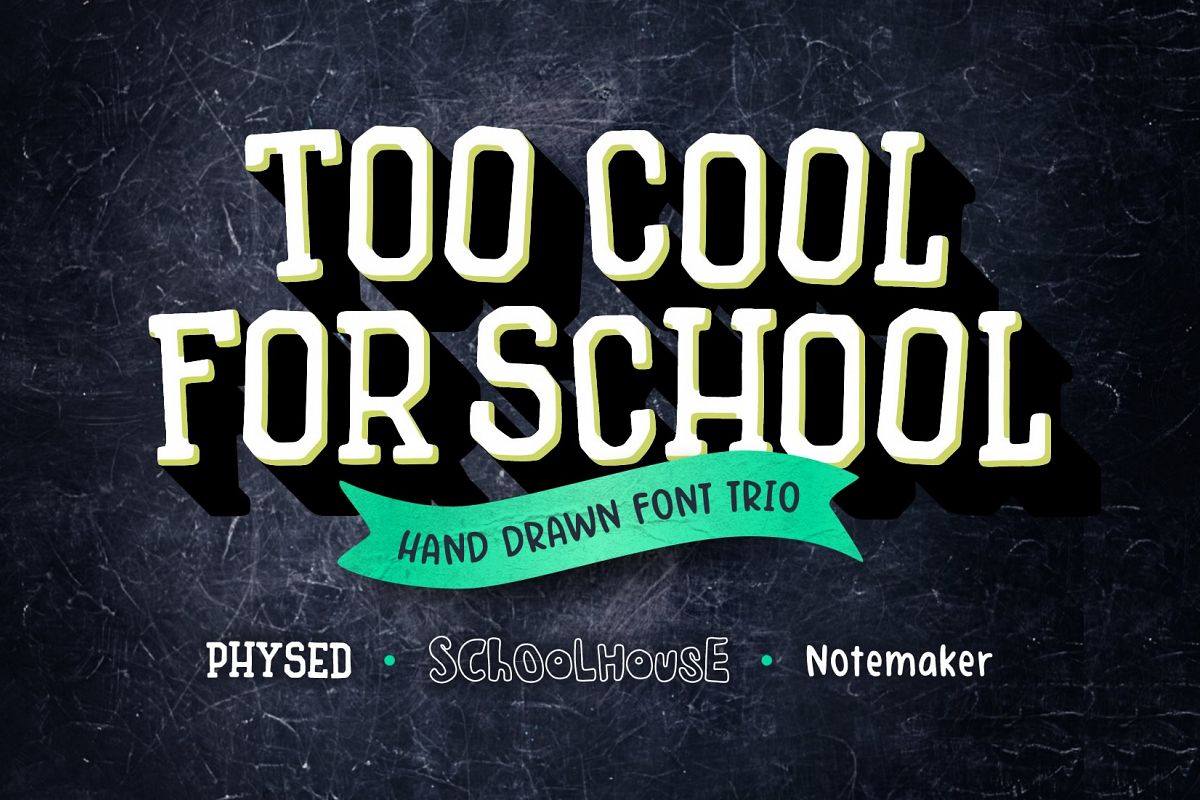
Too Cool for School Font Trio
PhysEd
Notemaker
SchoolhouseOutline
Schoolhouse
Too Cool for School Font Trio includes 3 fun hand-drawn fonts: PhysEd - a collegiate slab serif, Notemaker - a super useful sans, and Schoolhouse - a childlike block font with solid and outline versions. English language only.
Too Cool for School Font Trio